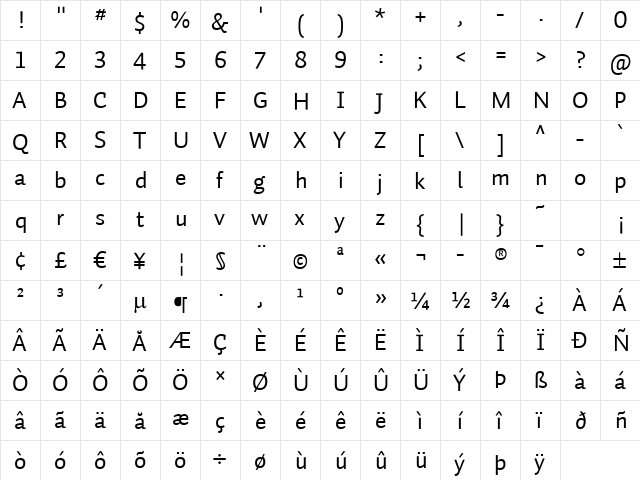
Auto 1 Regular LF
Design Context for Auto 1 Typeface
Auto 1 takes a measured approach to typography — its balanced proportions and neutral character make it a reliable workhorse for both digital and print work.